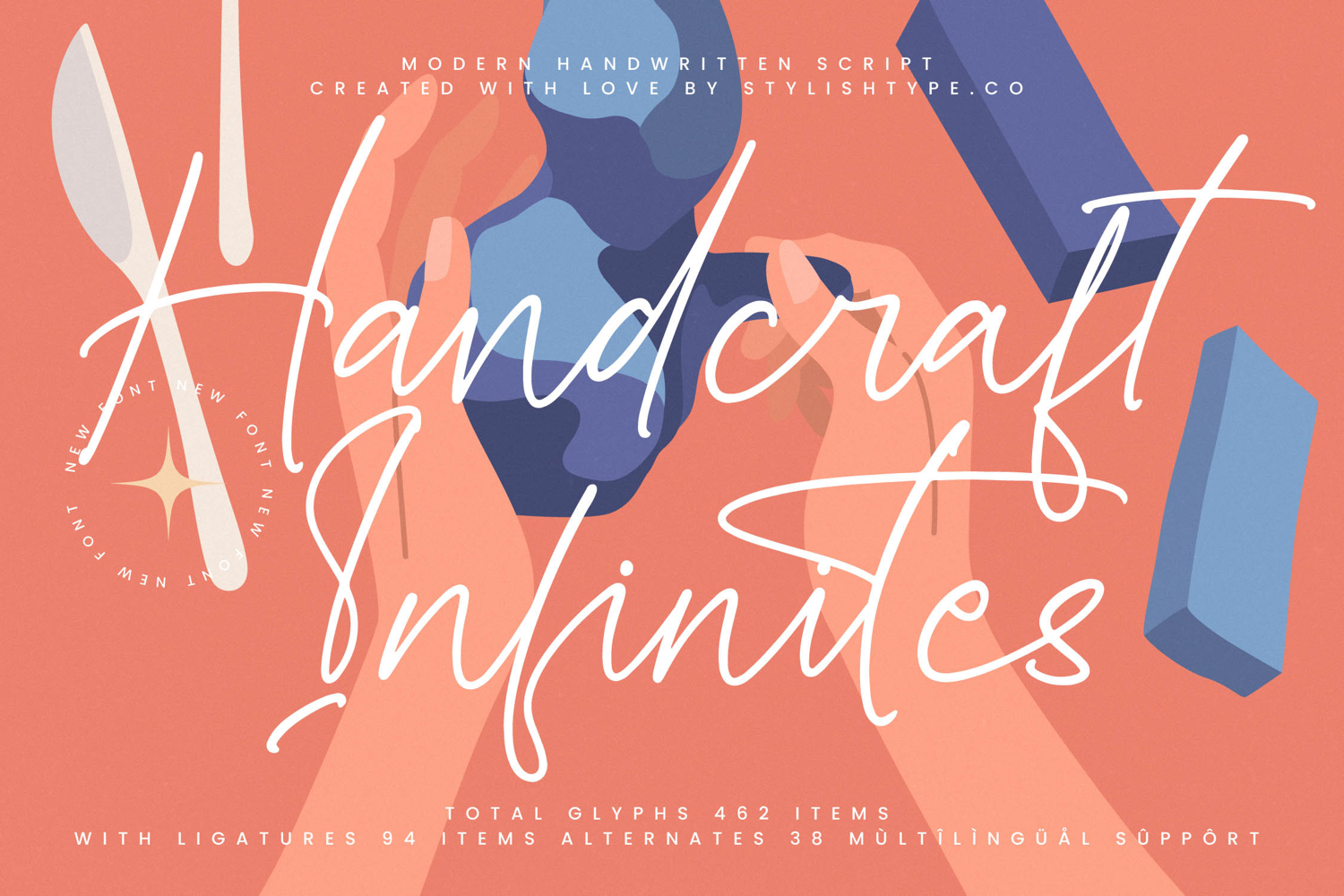
Handcraft Infinites - Modern Handwritten Script
Discover the ultimate solution for luxury branding and high-end editorial design. Handcraft Infinites - Modern Handwritten Script is perfect for creating bespoke logos, chic wedding stationery, lifestyle packaging, and impactful social media graphics. Its elegant silhouette ensures your projects stand out with a sense of hand-drawn exclusivity and professional flair, making it a staple for any modern design toolkit.
Achieve unparalleled global reach without sacrificing your brand’s artistic integrity. With its extensive multilingual support, Handcraft Infinites - Modern Handwritten Script adapts seamlessly across global markets, making it incredibly versatile for international projects. Boasting 462 unique glyphs and stylistic ligatures, this font provides the technical flexibility required for complex, multilingual typographic layouts and dynamic compositions.
Transform your next design into a visual masterpiece with this essential creative asset. By choosing Handcraft Infinites - Modern Handwritten Script, you are investing in a timeless typeface that bridges the gap between contemporary trends and classic craftsmanship. Enhance your digital portfolio and captivate your audience with the effortless beauty and refined charm of this stunning script font.